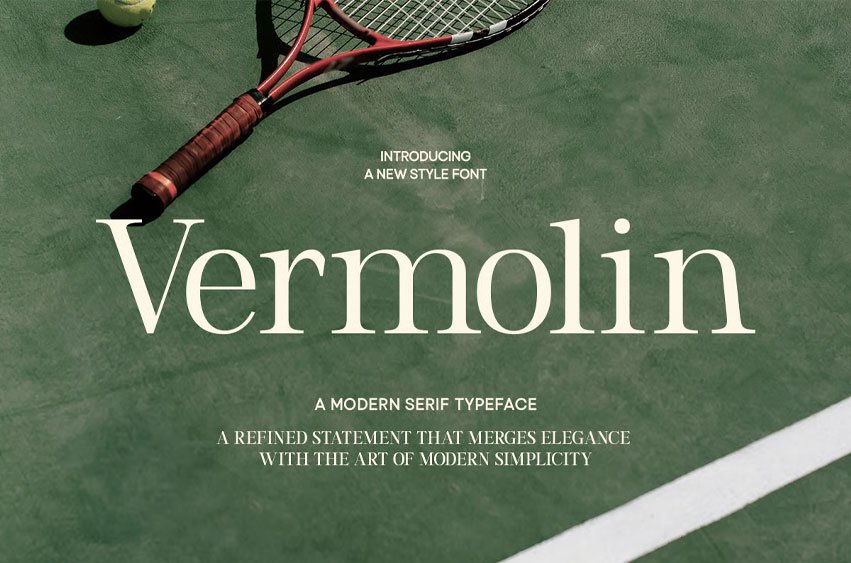
Vermolin Font Sophisticated Serif is a refined serif typeface that blends timeless elegance with modern sophistication. With graceful curves, balanced proportions, and sharp detailing, it delivers a distinctive presence that works beautifully across print and digital media. Designed to evoke class and refinement, GC Vermolin is perfect for branding, editorial layouts, luxury packaging, and high-impact visual identities. Its versatile style makes it equally striking in bold headlines or delicate titles, ensuring your design carries both authority and charm.
- Elegant Serif Construction
Bring sophistication, timeless beauty, and refined elegance to your design with GC Vermolin – Sophisticated Serif.